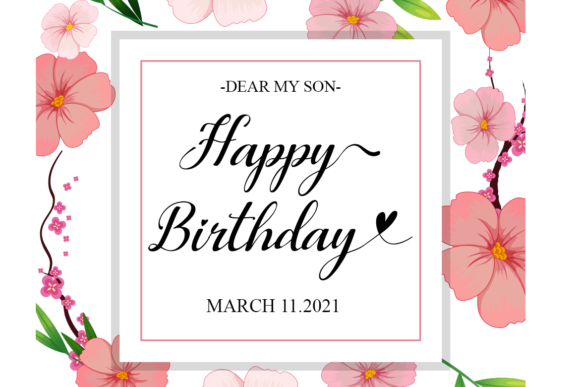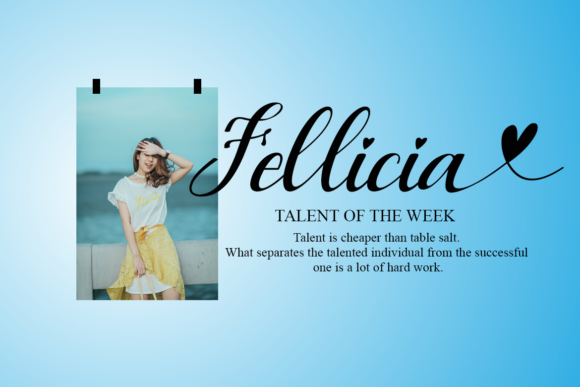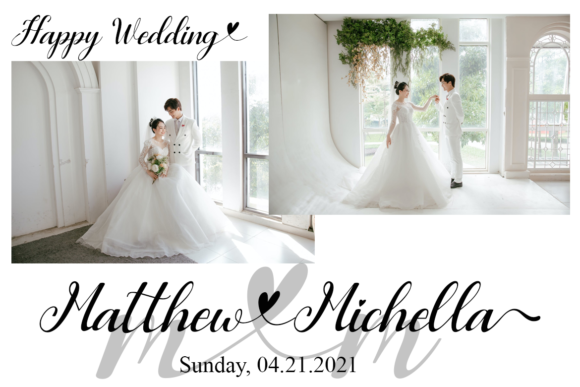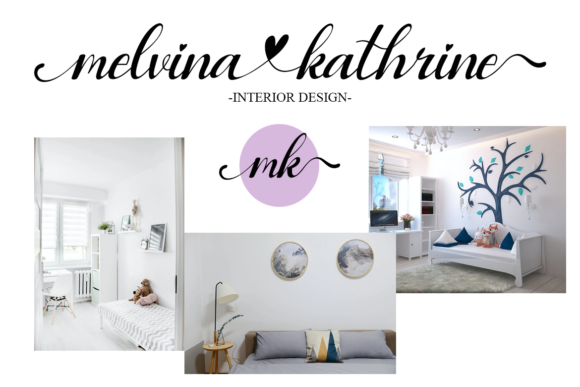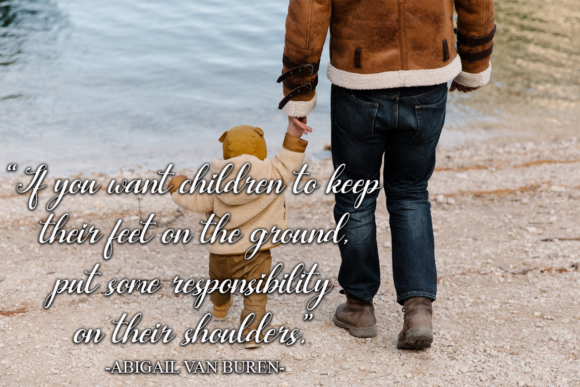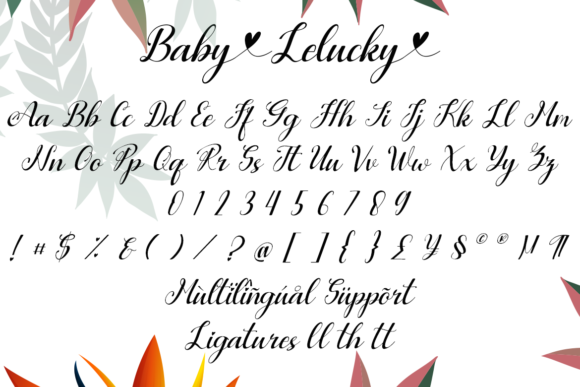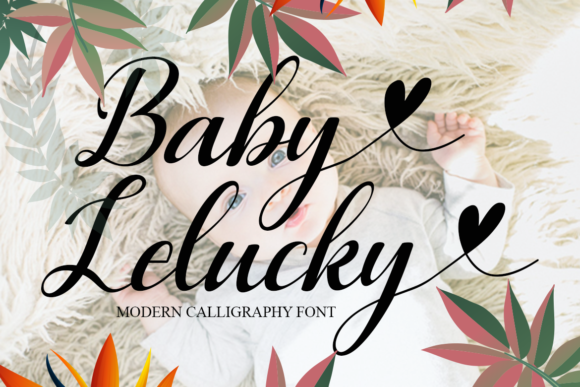
Baby Lelucky Font: The Perfect Handwritten Font for Your Creative Projects
Are you looking for a beautiful and versatile handwritten font to elevate your designs? Look no further than Baby Lelucky Font! This stunning font is perfect for creating delicate wedding invitations, beautiful stationary art, eye-catching social media posts, and much more. In this article, we’ll dive into the features and benefits of Baby Lelucky Font, and explore how you can use it to take your designs to the next level.
What is Baby Lelucky Font?
Baby Lelucky Font is a gorgeous handwritten font that exudes a sense of elegance and sophistication. Its adaptable vibe makes it perfect for a wide range of design projects, from romantic wedding invitations to stylish social media graphics. With its beautiful, flowing script, Baby Lelucky Font is sure to capture the attention of your audience and leave a lasting impression.
Key Features of Baby Lelucky Font
- PUA Encoded: Baby Lelucky Font is PUA (Private Use Area) encoded, which means you can access all of the glyphs and swashes with ease. This makes it simple to create stunning designs with a high level of customization.
- Handwritten Style: The font features a beautiful, handwritten style that adds a touch of personality to any design.
- Adaptable Vibe: Baby Lelucky Font has an adaptable vibe that makes it perfect for a wide range of design projects, from formal to informal.
Uses for Baby Lelucky Font
Baby Lelucky Font is a versatile font that can be used for a wide range of design projects, including:
- Wedding Invitations: Create beautiful, delicate wedding invitations that set the tone for a romantic and memorable day.
- Stationary Art: Use Baby Lelucky Font to create stunning stationary art, including greeting cards, thank you cards, and more.
- Social Media Posts: Add a touch of elegance to your social media posts with Baby Lelucky Font. Perfect for creating eye-catching graphics and announcements.
- Branding: Use Baby Lelucky Font to create a unique and memorable brand identity that sets you apart from the competition.
Tips for Using Baby Lelucky Font
Here are a few tips for getting the most out of Baby Lelucky Font:
- Experiment with Different Sizes: Baby Lelucky Font looks great in a variety of sizes, from small and delicate to large and bold.
- Pair with Other Fonts: Try pairing Baby Lelucky Font with other fonts to create a unique and visually appealing design.
- Use Swashes and Glyphs: Take advantage of the PUA encoding and use the swashes and glyphs to add a touch of personality to your designs.
Baby Lelucky Font is a stunning handwritten font that is perfect for designers and crafters looking to add a touch of elegance and sophistication to their designs. With its adaptable vibe, PUA encoding, and beautiful handwritten style, Baby Lelucky Font is sure to become a go-to font in your design arsenal. Whether you’re creating wedding invitations, stationary art, social media posts, or more, Baby Lelucky Font is the perfect choice.